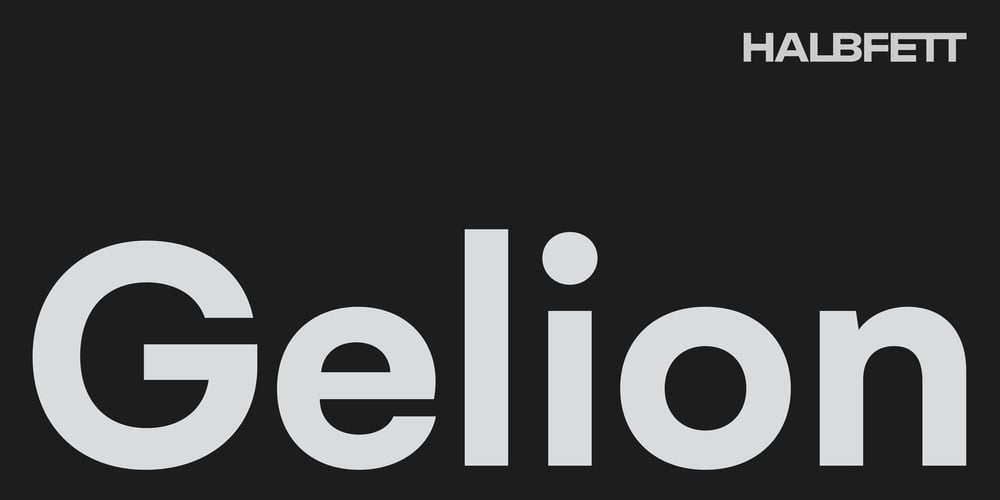
Gelion Font Family was designed by Deni Anggara and published by Halbfett. Gelion contains 16 styles and family package options. Gelion is a large family of geometric sans serif fonts. It ships both as two Variable Fonts or as 16 traditional fonts. Those static fonts span eight different weights, ranging from Extralight to Black. Each has an upright and an italic font on offer. The italics are carefully crafted, with an 8° slope. Gelion is inspired by 20th-century geometric sans serifs and classic neo-grotesque designs from the late 19th century and the middle of the 20th century. Its forms remain true to the gracefully geometric look of its classic predecessors, which will surely tick off any client’s long list of branding requirements. Letters in all of Gelion’s weights are drawn with virtually monolinear strokes. Its lowercase letters have a tall x-height. Yet, that still leaves enough room for the fonts’ diacritical marks. Gelion’s default “a” and “g” each have single-storey forms by default. The dots on the ‘i’, ‘j’, and diacritics are round, as are the punctuation marks. Gelion is an excellent choice for both corporate design and editorial design projects, thanks to its range of weights and its legibility in text. The fonts include a lot of ligatures, some monochromatic emoji, a set of arrows, lovely Roman Numerals, and more. Thanks to Gelion’s stylistic alternates, if a project comes up where you do not need a geometric vibe, you can activate Stylistic Set 1. That will replace many of the fonts’ letters with more humanistic-sans alternates, giving your text the feeling of a whole other type design with just one click. Last but not least, the descending “f” available in Gelion’s italics is a nice typographic trait.